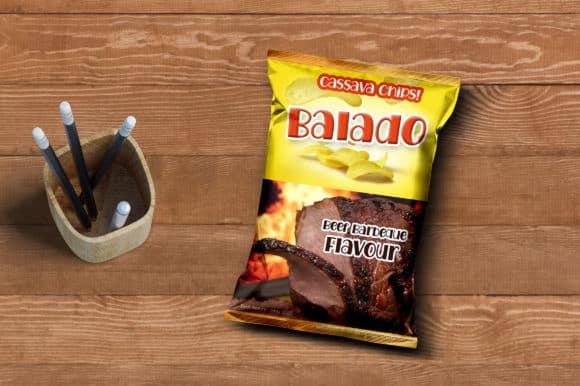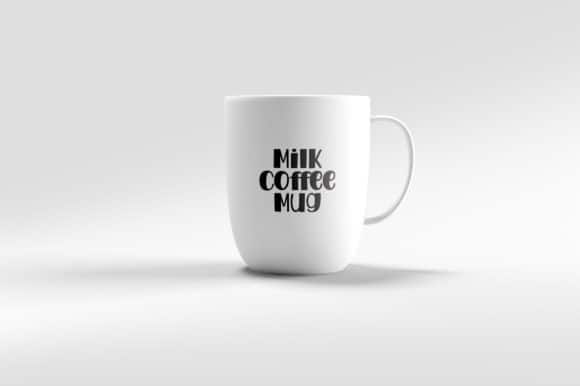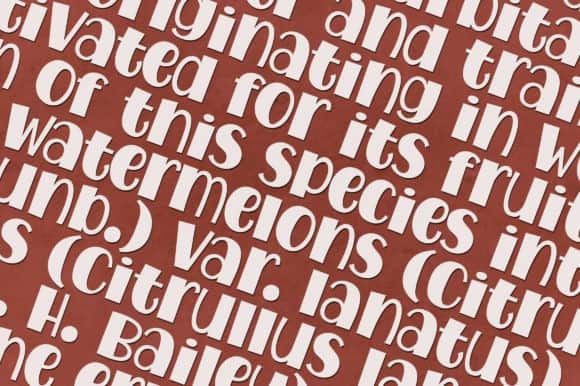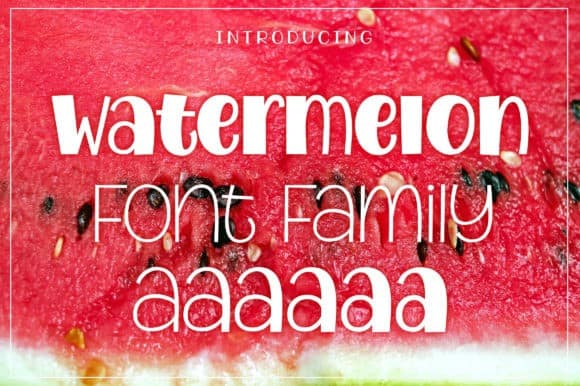
Watermelon Display Font
Watermelon Display Font is a simple handmade font will give your project the fun, young look you want. Made from font designer named Royaltype. It’s a fresh, cool and sweet display font with a unique vibe. Get inspired by its bold flavor! You can use them on their own or layer them to get the full effect. The best part is that it doesn’t come alone, the clipart is the perfect compliment for your creations.